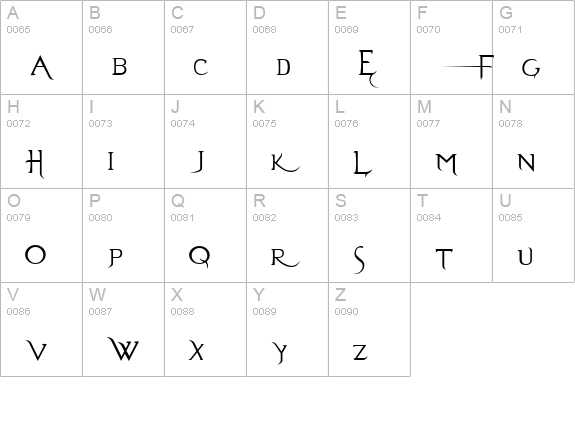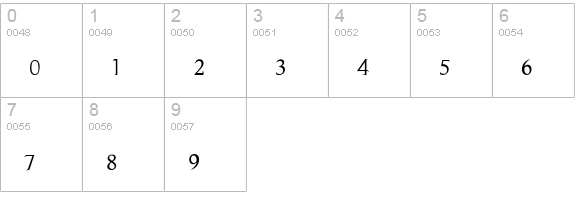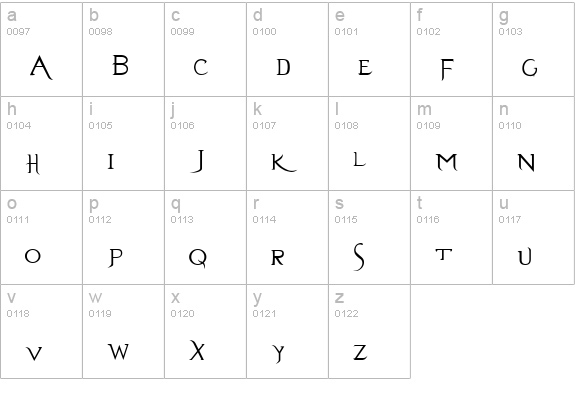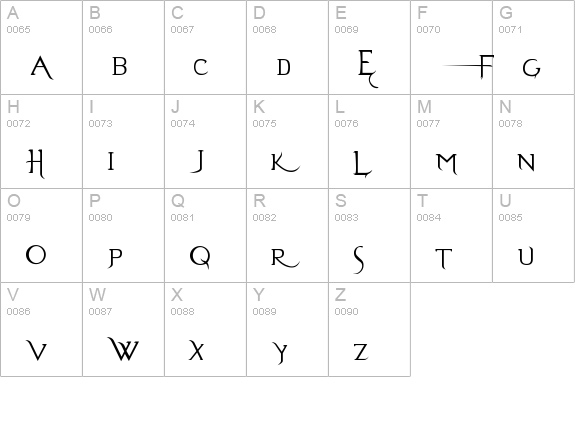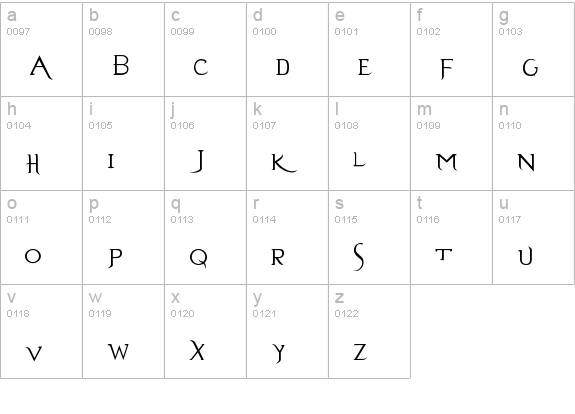
Evanescent Series B prespaced Font Details
The Evanescent Series B prespaced font is a captivating and mesmerizing typeface that will leave a lasting impression on your audience. Its unique design combines elegance with a touch of mystique, making it perfect for a wide range of creative projects. With its ethereal and delicate strokes, the Evanescent Series B prespaced font adds a sense of enchantment and allure to any text. Each letter seems to effortlessly float on the page, evoking a sense of transience and evanescence. This font is not only visually stunning but also highly versatile. Its clean and legible characters make it suitable for various applications, including logos, headlines, invitations, and more. Whether you're designing a mystical book cover or creating an ethereal brand identity, the Evanescent Series B font will elevate your design to new heights. One of the most appealing aspects of the Evanescent Series B prespaced font is that it is freely available to download at FontsMarket.com. This means that you can effortlessly incorporate this captivating font into your projects without any additional costs. Its availability for free ensures that designers and enthusiasts alike can explore and experiment with this font without limitations. So, if you're looking to add a touch of elegance and enchantment to your designs, look no further than the Evanescent Series B prespaced font. Download it for free at FontsMarket.com and let your creativity take flight.